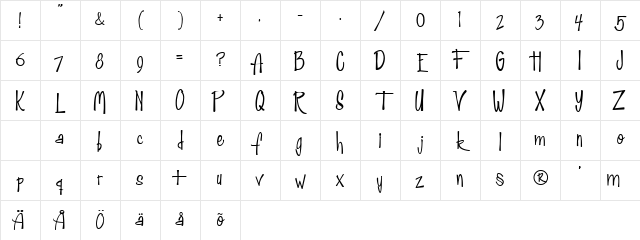
Fabulous 50s Normal Free Font
Fabulous 50s Normal
Design Context for Fabulous 50s
Fabulous 50s is a composed and adaptable typeface that performs quietly and consistently across a wide range of design contexts.